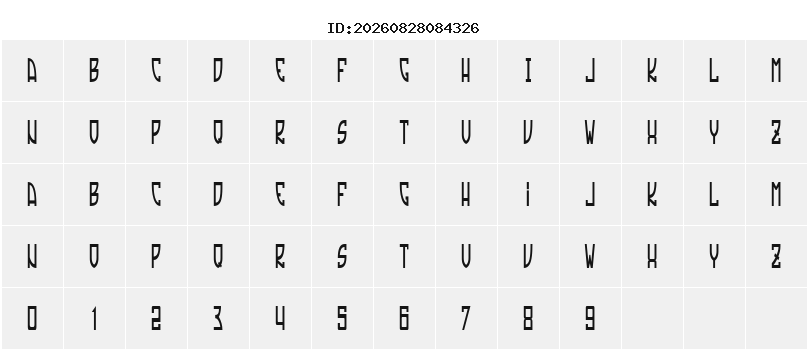
• Font Name: Tradizione Slim
• Full Font Name: Tradizione Slim
• Manufacturer: Brusa
About Tradizione Slim.ttf
Tradizione Slim.ttf is a modern, elegant sans-serif font designed for ultimate readability and visual harmony. Perfect for branding, headlines, web design, and print materials.